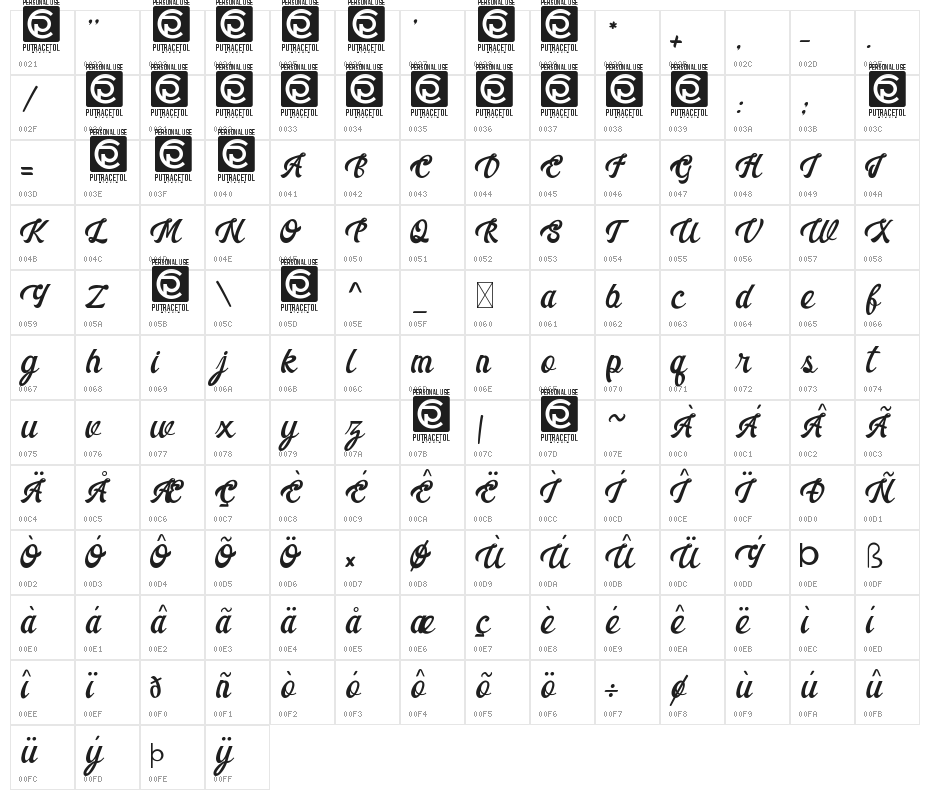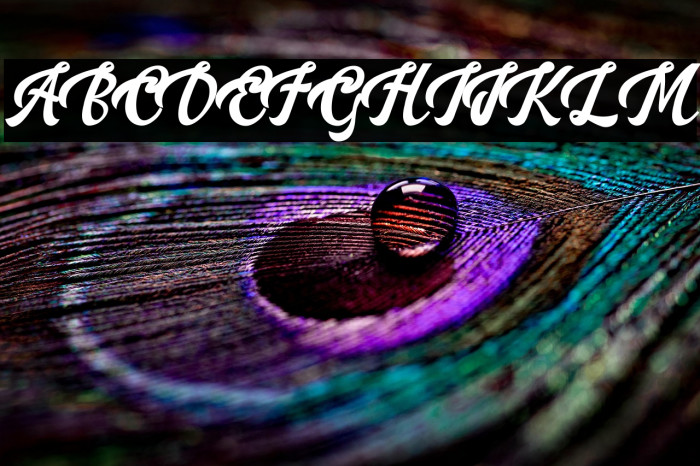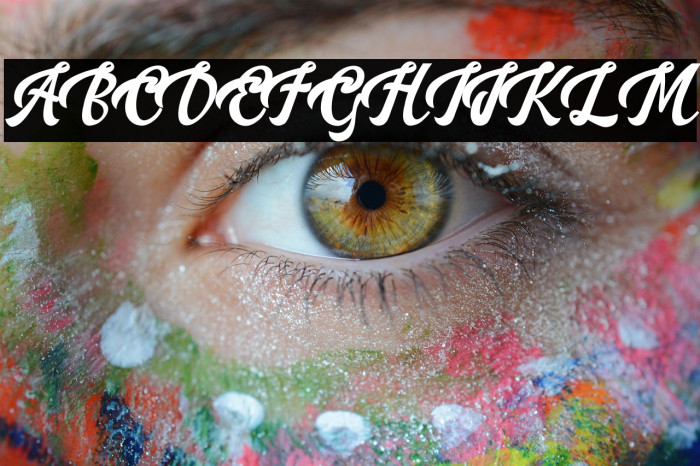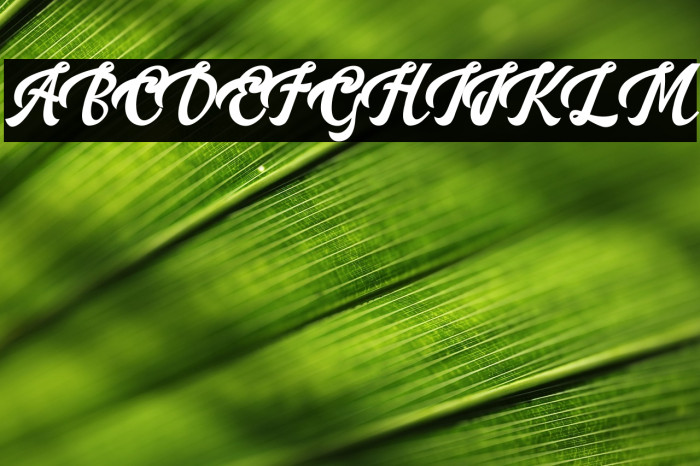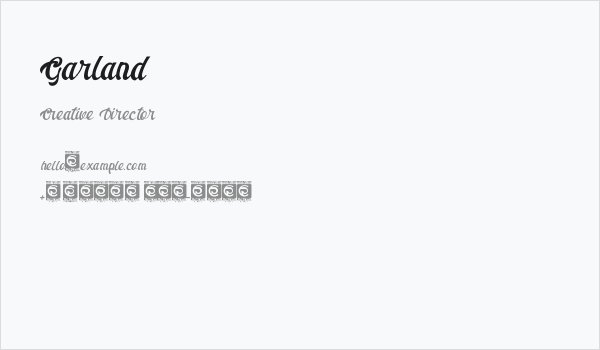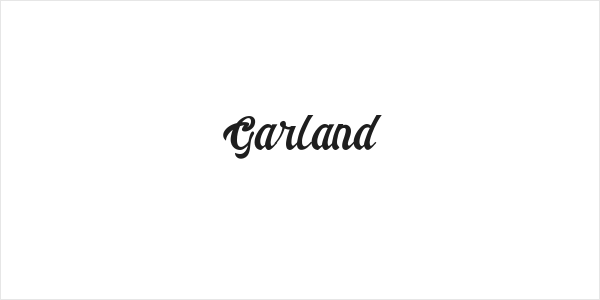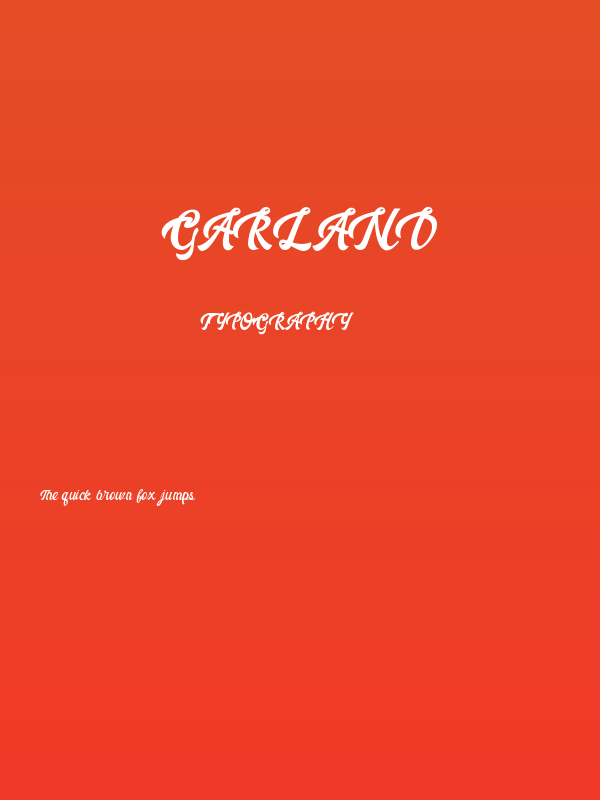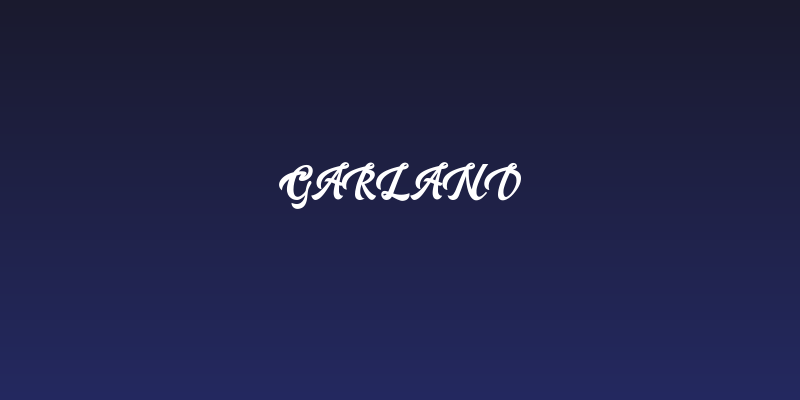
Garland Font
Garland Description
This font features a flowing, cursive style with elegant, sweeping curves and a smooth, connected script. The uppercase letters are bold and dynamic, with a slight slant that adds a sense of motion and grace. The lowercase letters maintain the same fluidity, with rounded forms and consistent stroke widths that enhance readability. The numerals and special characters are designed to match the overall aesthetic, ensuring a cohesive look across all text. This font exudes a sense of sophistication and charm, making it ideal for projects that require a touch of elegance.
| Overall Style | Elegant, Decorative |
| Use Case | Headlines, Invitations, Branding |
| Proposed Projects | Ideal for wedding invitations, elegant branding, greeting cards, and decorative headlines. |